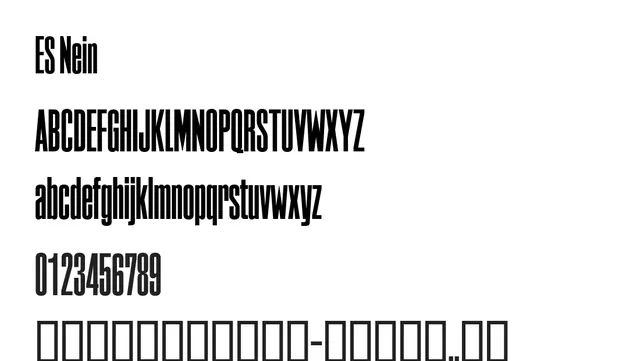
A condensed, bold display sans with attitude and high contrast, designed to grab attention in tight spaces and bold design statements.
Use ES Nein for headlines, music poster copy, and brand expressions where personality and punch are paramount. Its extreme condensation and weight make it unsuitable for any continuous reading.
Combine with a light, open sans like ES Klarheit Grotesk or a warm text serif to provide breathing room and readability contrast.